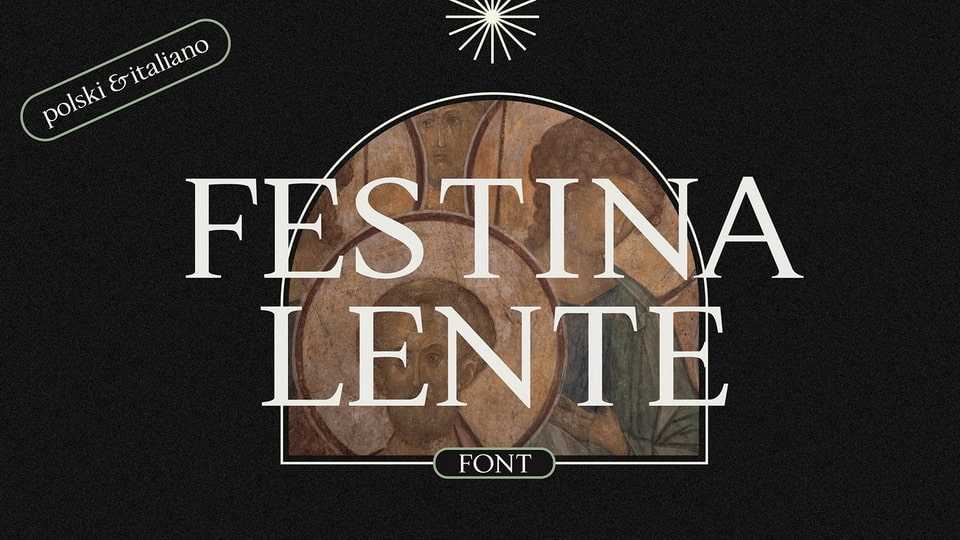
Download Festina Lente font, a serif typeface between tradition and modernity, inspired by Italian Renaissance prints by Aldo Manutius. Letter design is a very conservative and progressive activity at the same time – Festina Lente is based on certain principles, but it changes with the progress of the language.